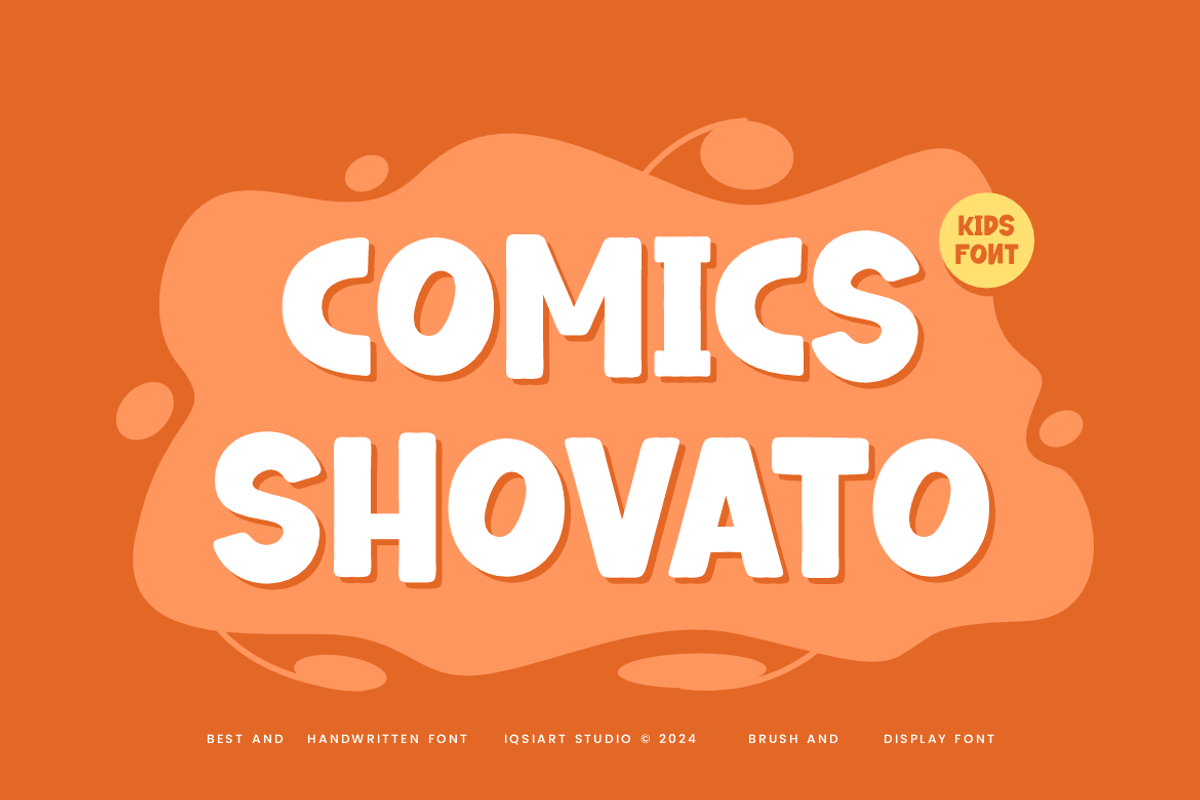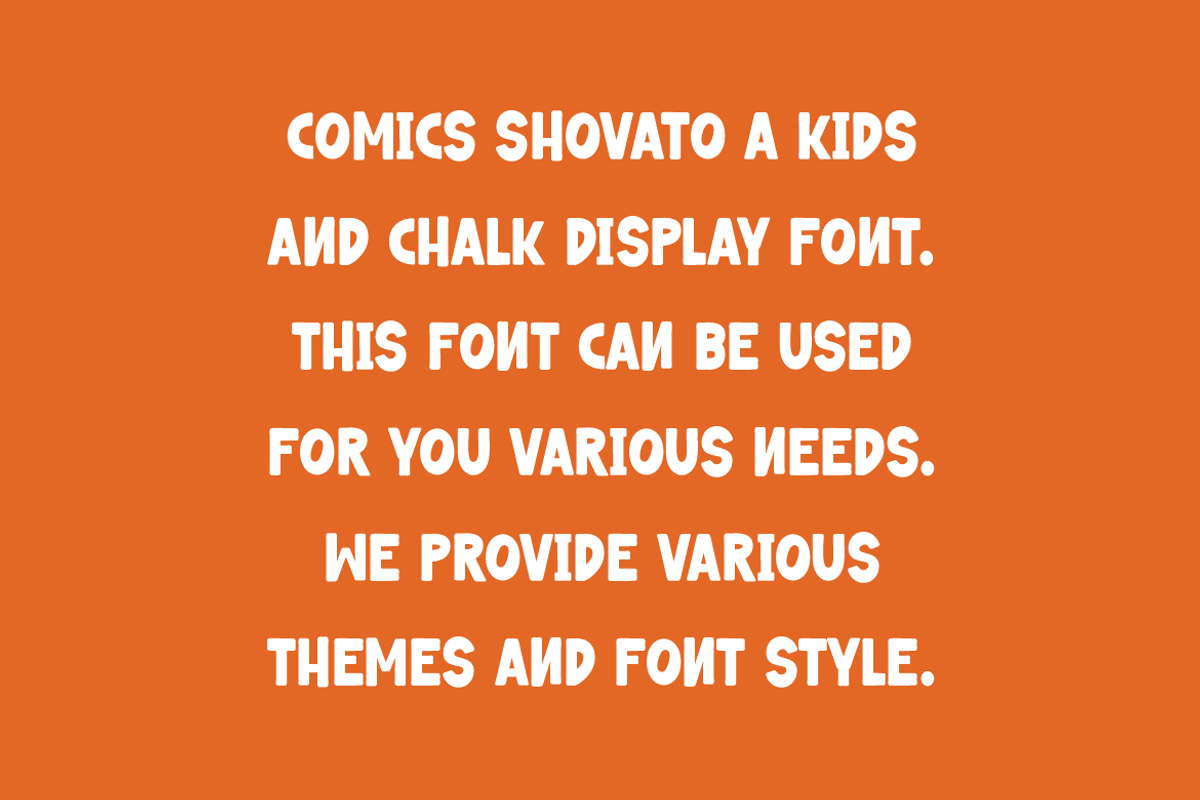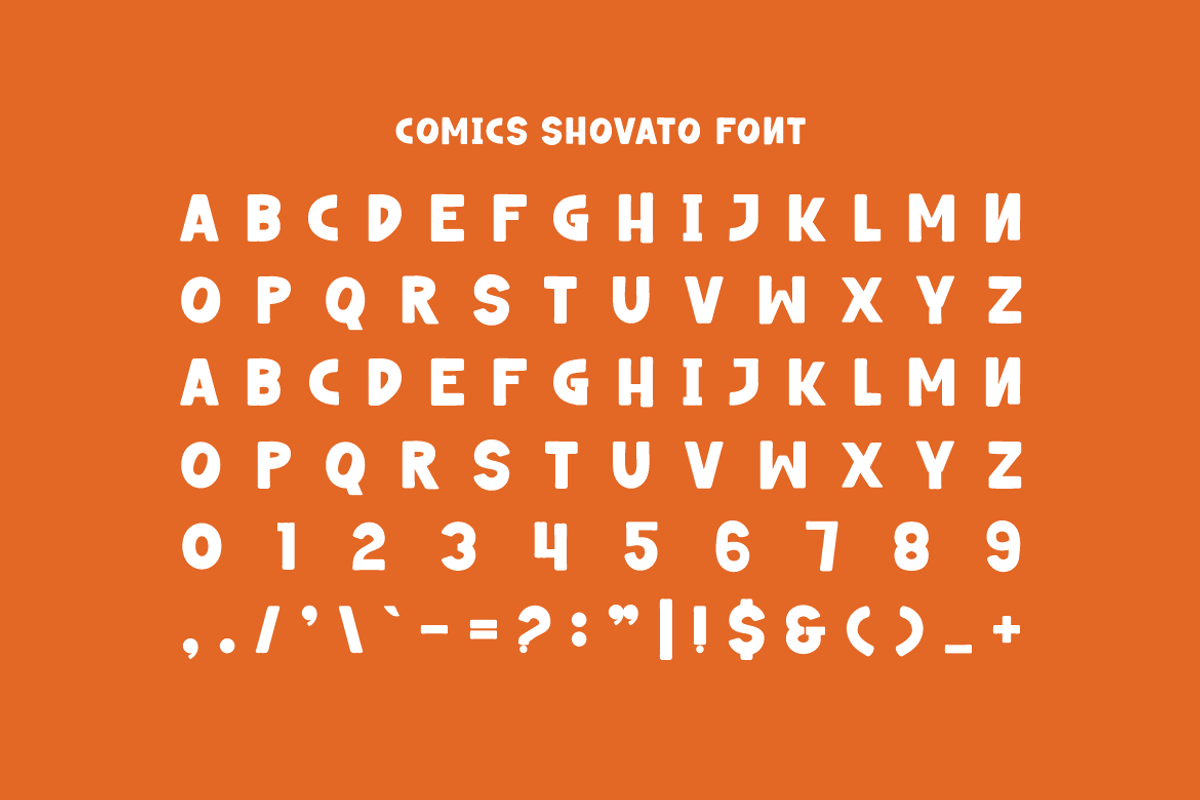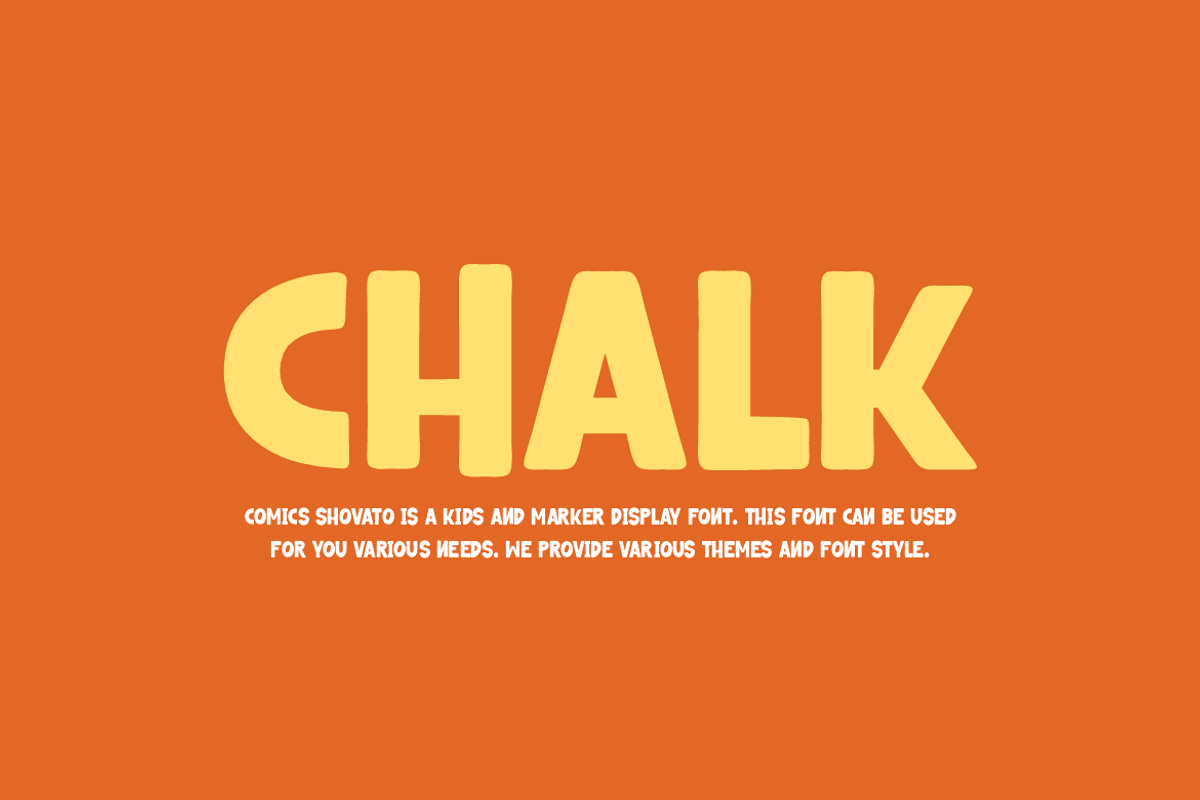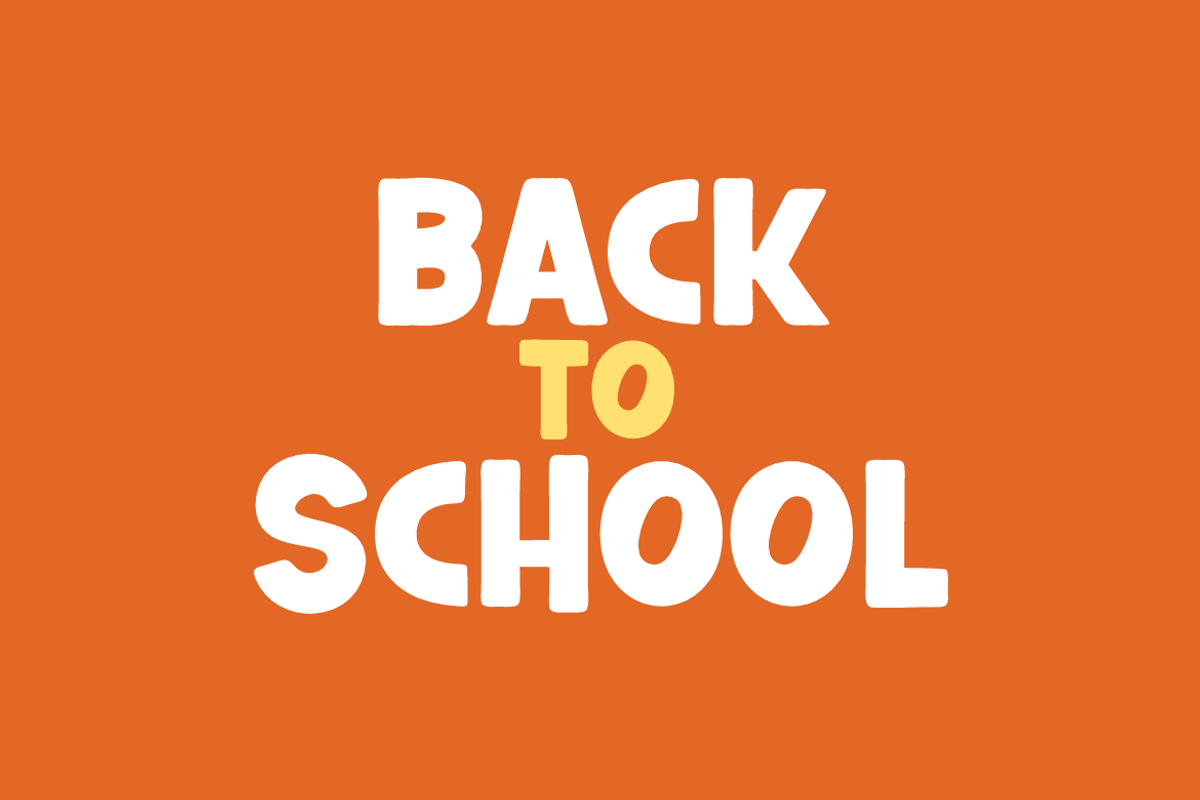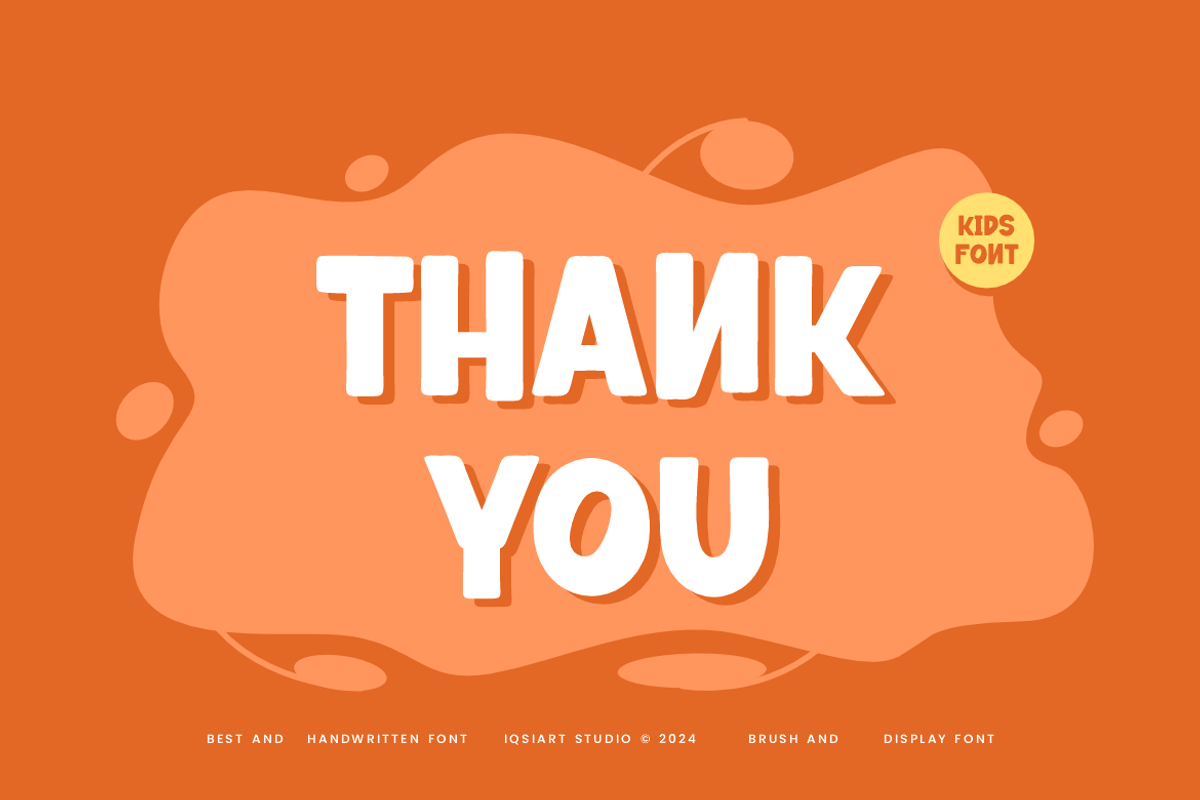
Comics Shovato - Round Font
Comics Shovato Font is a best and authentic display font. This font can be used for your various needs. We provide various themes and font styles. visit our profile to get a wide variety of themes and different font styles you need.